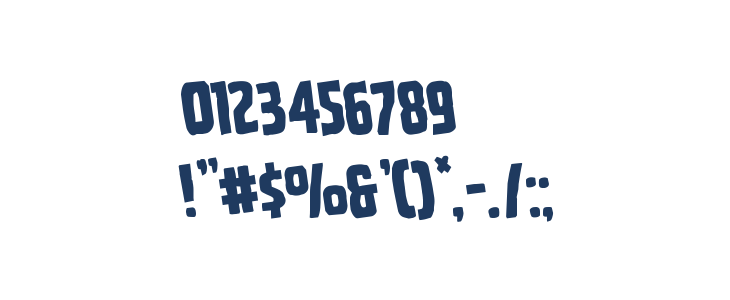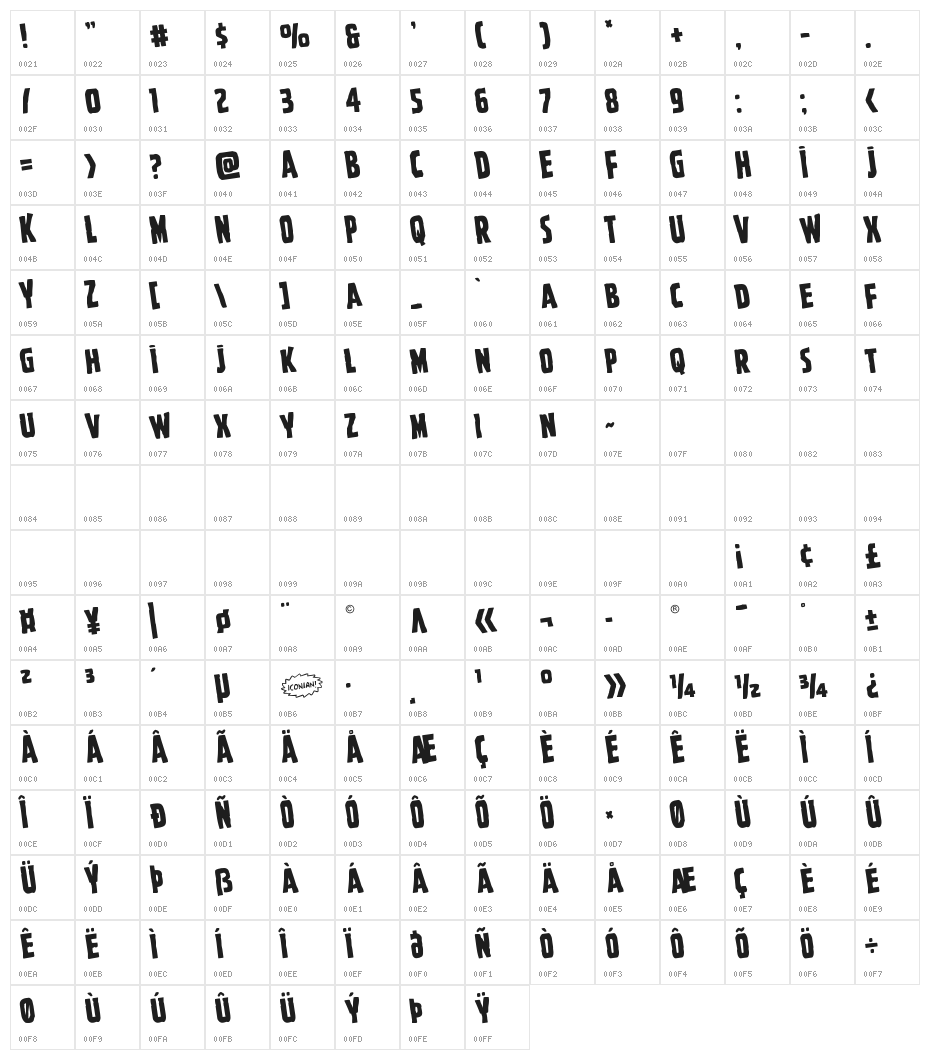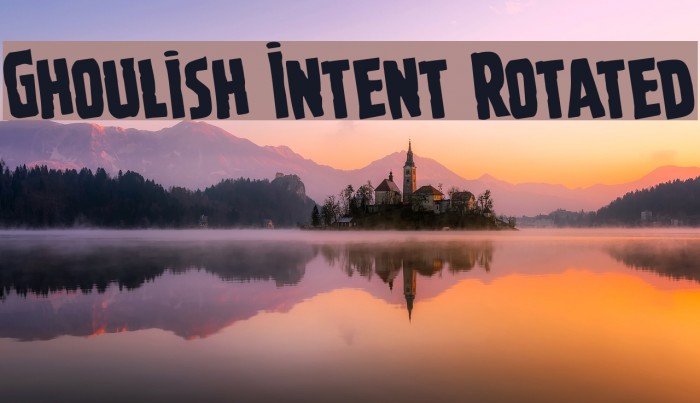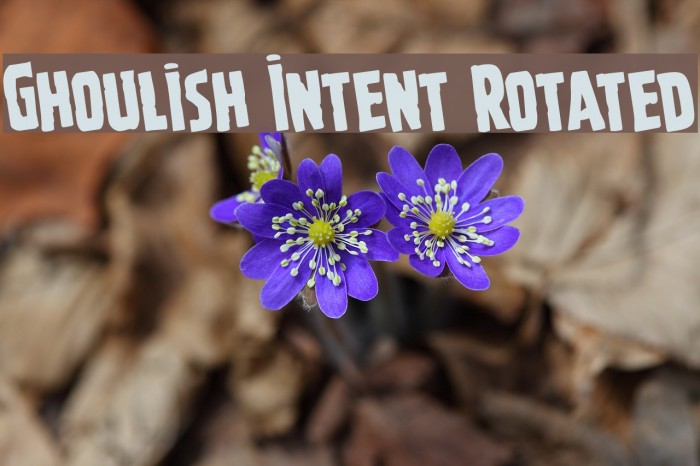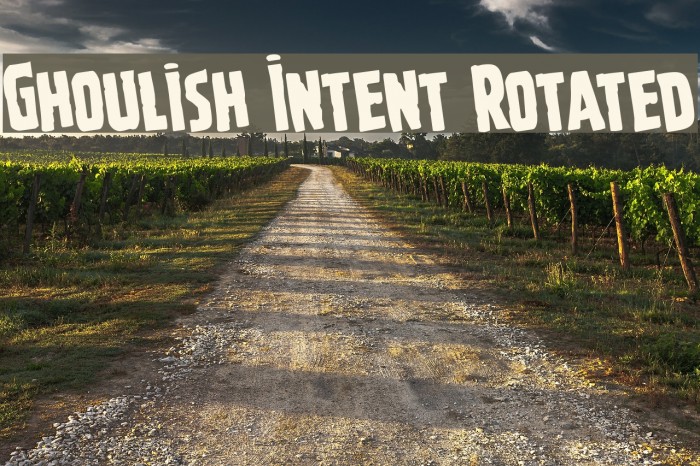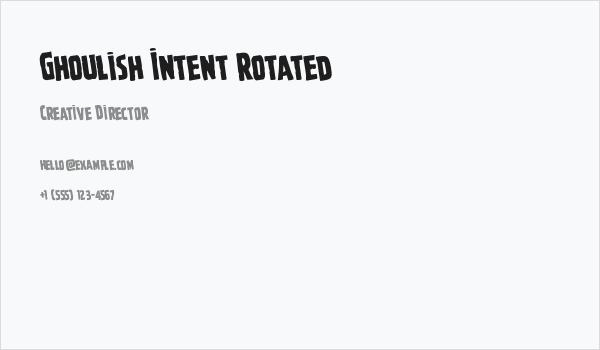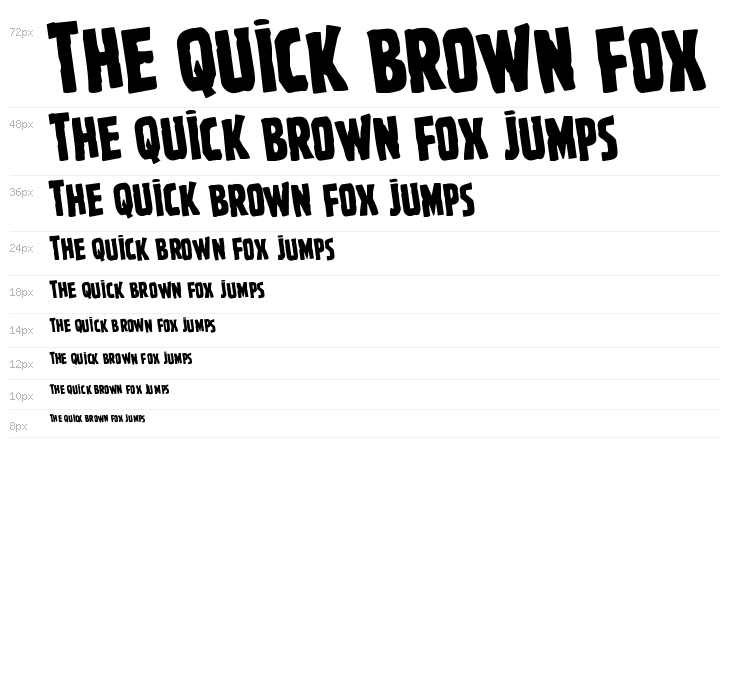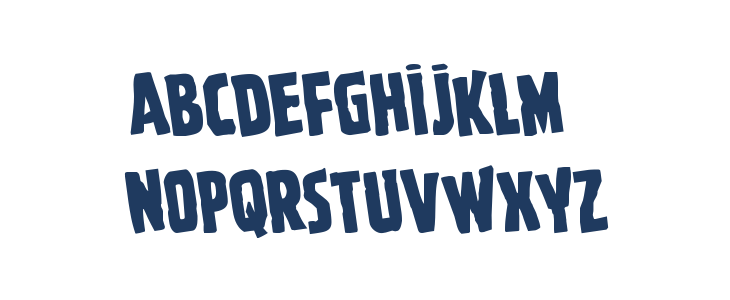
Ghoulish Intent Rotated Font
Ghoulish Intent Rotated Description
This font features a bold and playful design with a slightly irregular and hand-drawn appearance. The characters are thick and have a quirky, uneven baseline, giving them a dynamic and energetic feel. The uppercase and lowercase letters maintain a consistent style, with exaggerated curves and angles that add to the font's whimsical nature. The numbers and special characters are equally bold and match the overall aesthetic, making them suitable for attention-grabbing designs. The font's unique style is ideal for projects that require a fun and informal touch.
| Overall Style | Playful, Quirky |
| Use Case | Headlines, Posters, Branding |
| Proposed Projects | Perfect for Halloween-themed designs, children's book covers, playful posters, and quirky branding. |